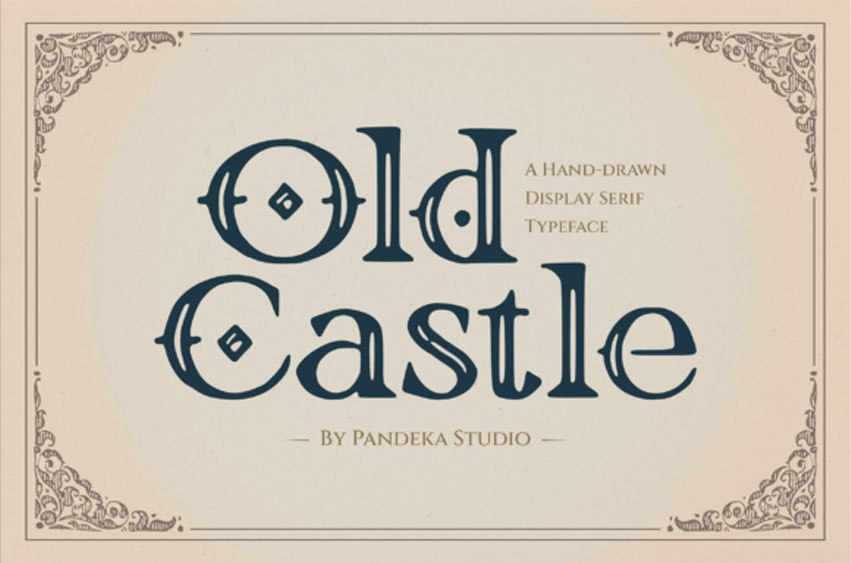
Old Castle Font is a vintage-inspired classic serif font that captures the elegance of timeless typography. With its ornamental charm, balanced letterforms, and historical touch, Old Castle evokes the sophistication of traditional printing and the romance of antique literature.
Crafted for designers seeking a refined, heritage-driven aesthetic, this serif typeface elevates projects with a sense of authenticity and grandeur. Perfect for book covers, editorial layouts, branding, invitations, and museum-style campaigns, Old Castle bridges the past and present with distinguished style.